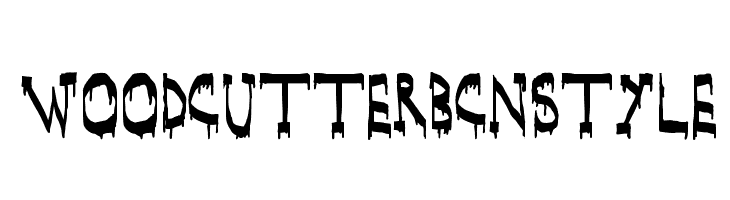
A bold, dripping font with a horror or grunge aesthetic.
A bold, jagged font with a chaotic, shredded appearance.
A bold, dripping font perfect for spooky and dramatic designs.
A decorative, hand-drawn font with a wild, jagged style.
A jagged, thorn-like font with a dark, chaotic aesthetic.
A chaotic, edgy font with jagged, irregular strokes and dynamic flow.